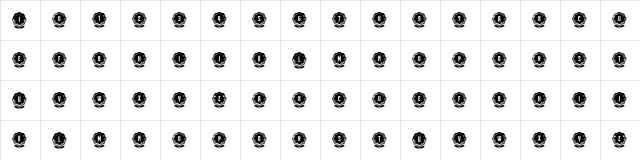
Flower Capitals 1 Regular
Design Context for Flower Capitals 1 Typeface
Flower Capitals 1 is a composed and adaptable typeface that performs quietly and consistently across a wide range of design contexts.